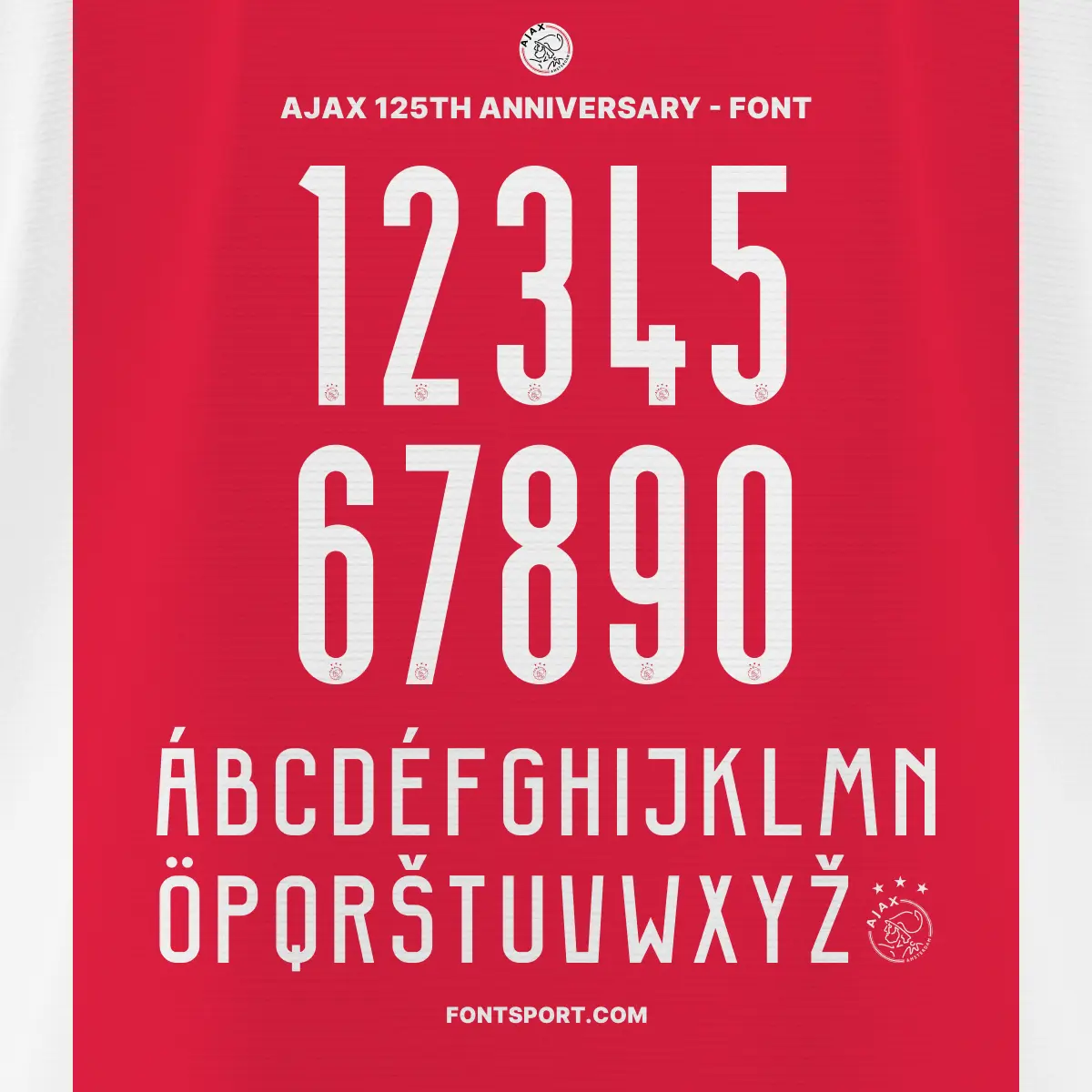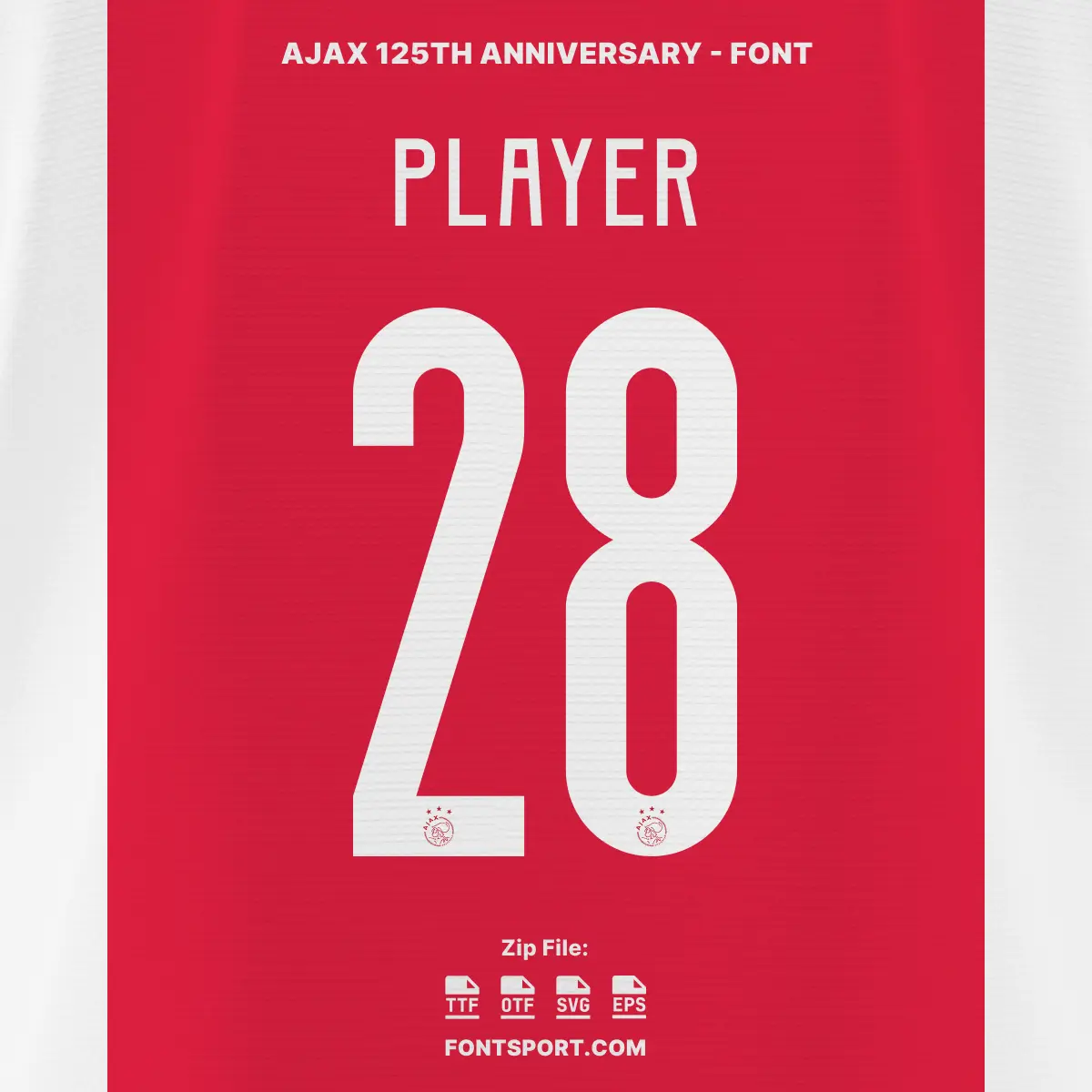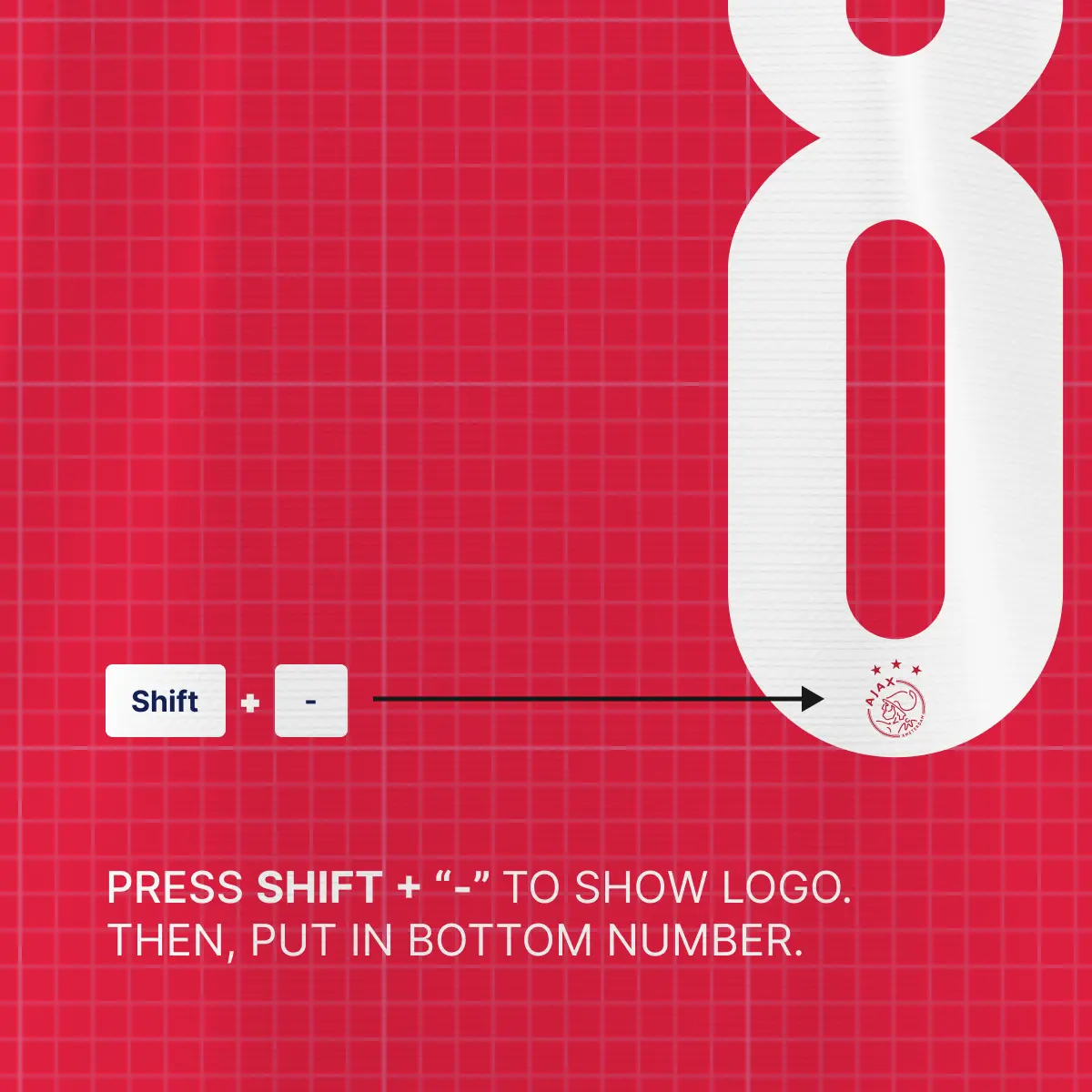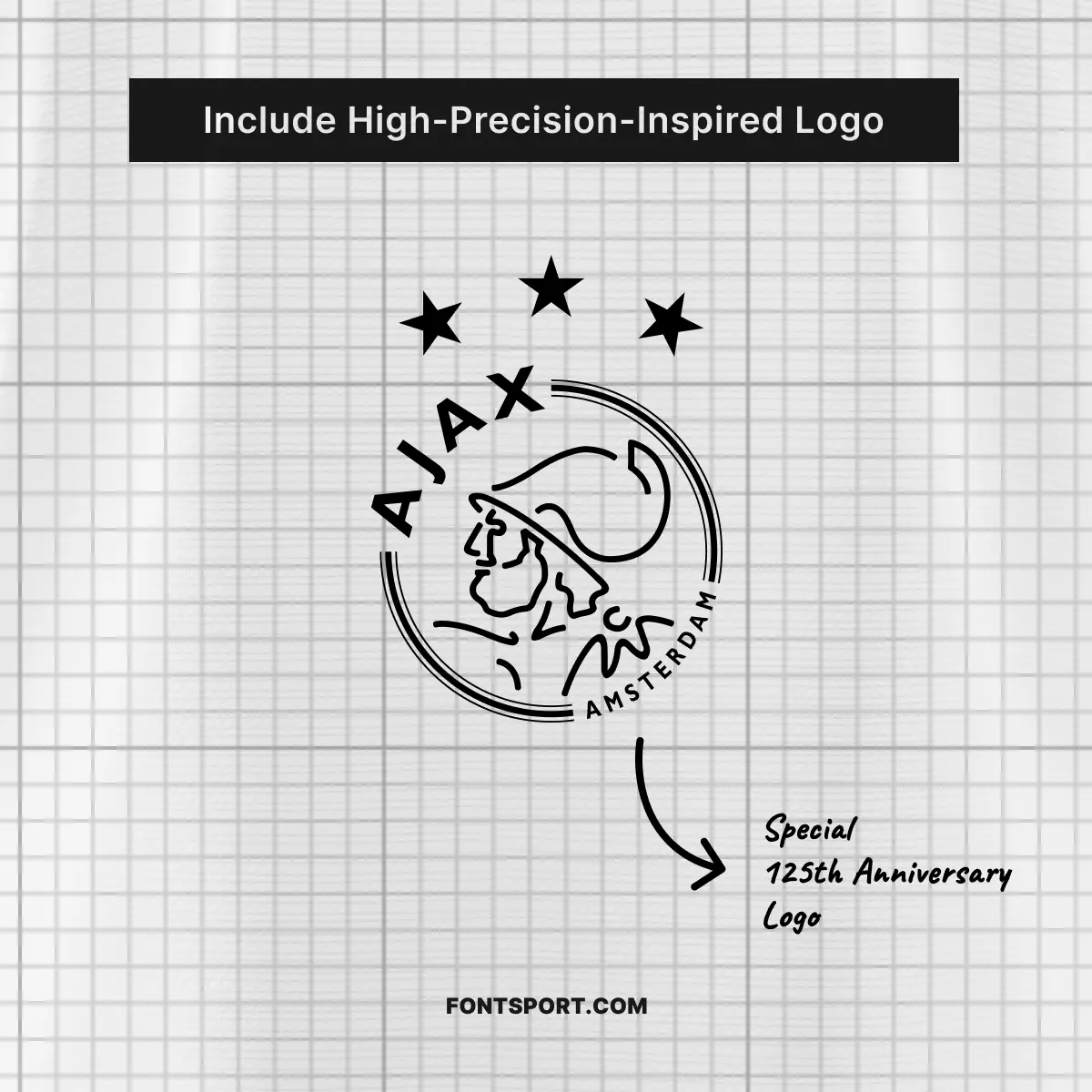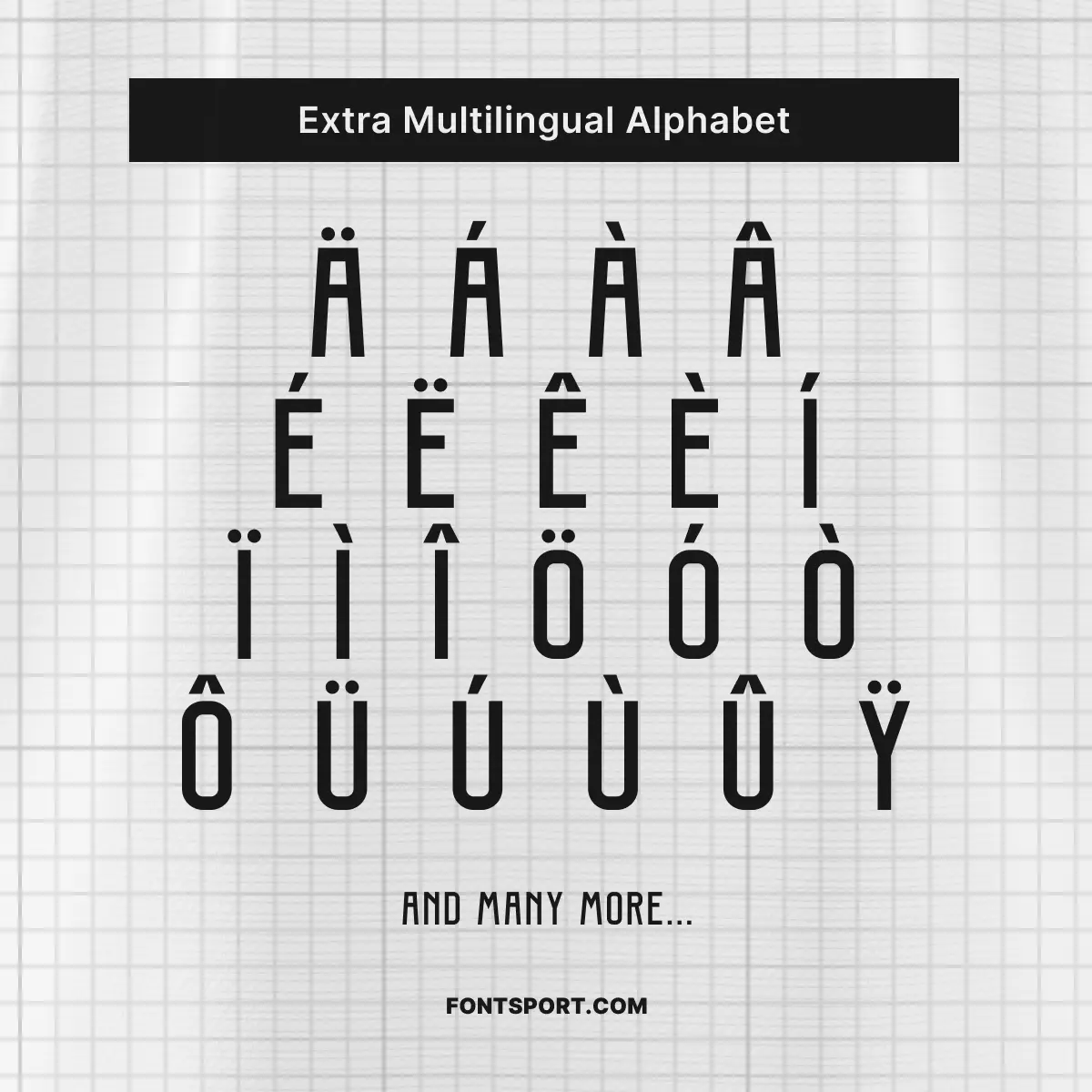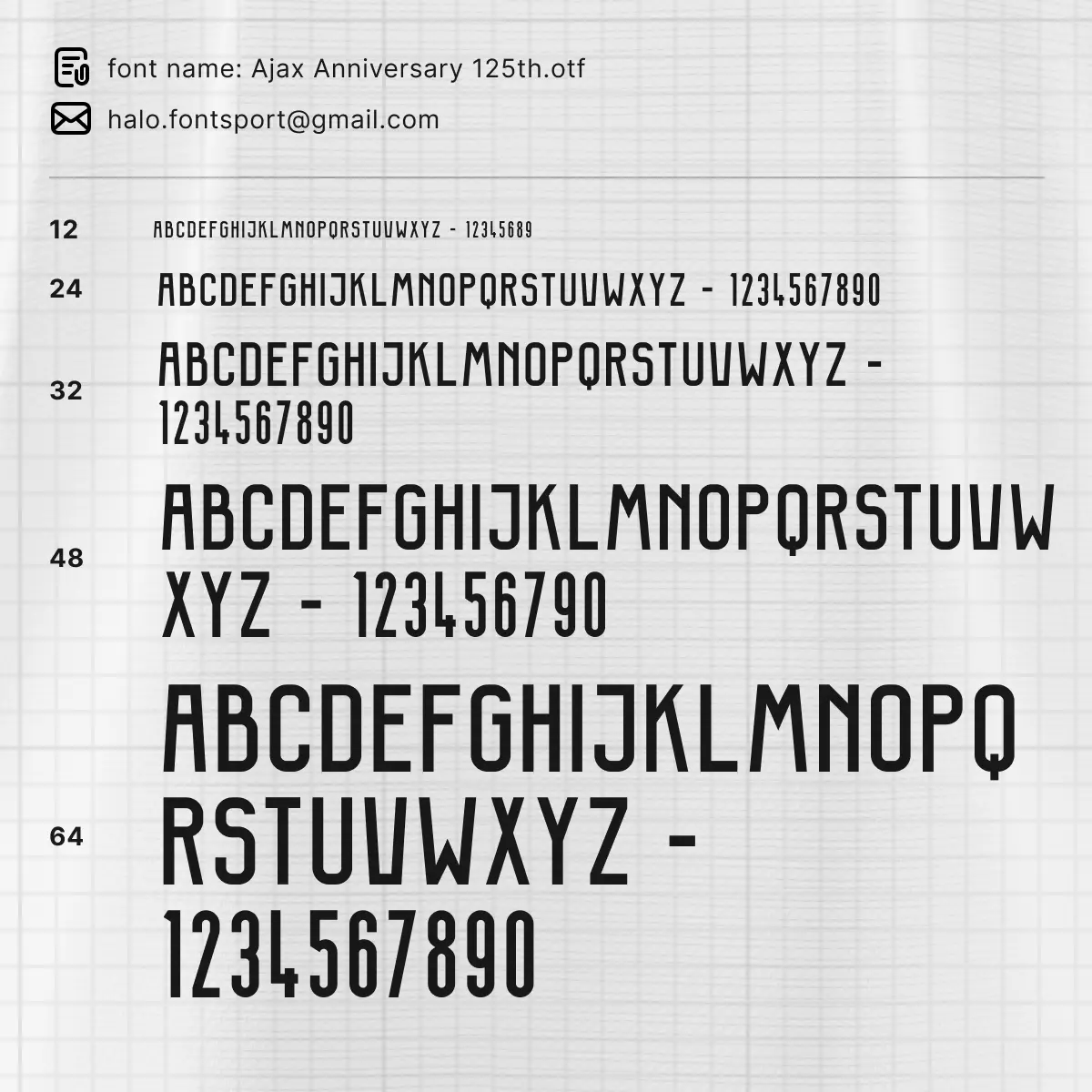
Ajax 125th Anniversary Font Kit
Celebrate the legacy of one of Europe’s most iconic football clubs with the Ajax Anniversary 125th Font Kit. Created to mark 125 years of Ajax Amsterdam, this exclusive font is directly inspired by the commemorative anniversary jersey worn during the 2025/2026 Eredivisie season. Now, creators and fans can capture the rich heritage of Ajax in their own custom projects.
• Uppercase A–Z and numbers 0–9
• Commemorative “125th Anniversary” badge glyph
• Ajax logo vector and pattern elements
• Multilingual alphabet support with extended characters
Each glyph was handcrafted to reflect the boldness of Ajax’s club identity while offering modern clarity for digital and print projects.
Ajax 125th Anniversary Special Jersey
Ajax celebrated their 125th anniversary with a clean white and red kit, adorned by a subtle badge marking the milestone. This limited-edition jersey was worn during select Eredivisie fixtures in the 2025/2026 season and has quickly become a collector’s favorite — especially with rising stars like Brian Brobbey and Steven Berghuis donning the shirt.